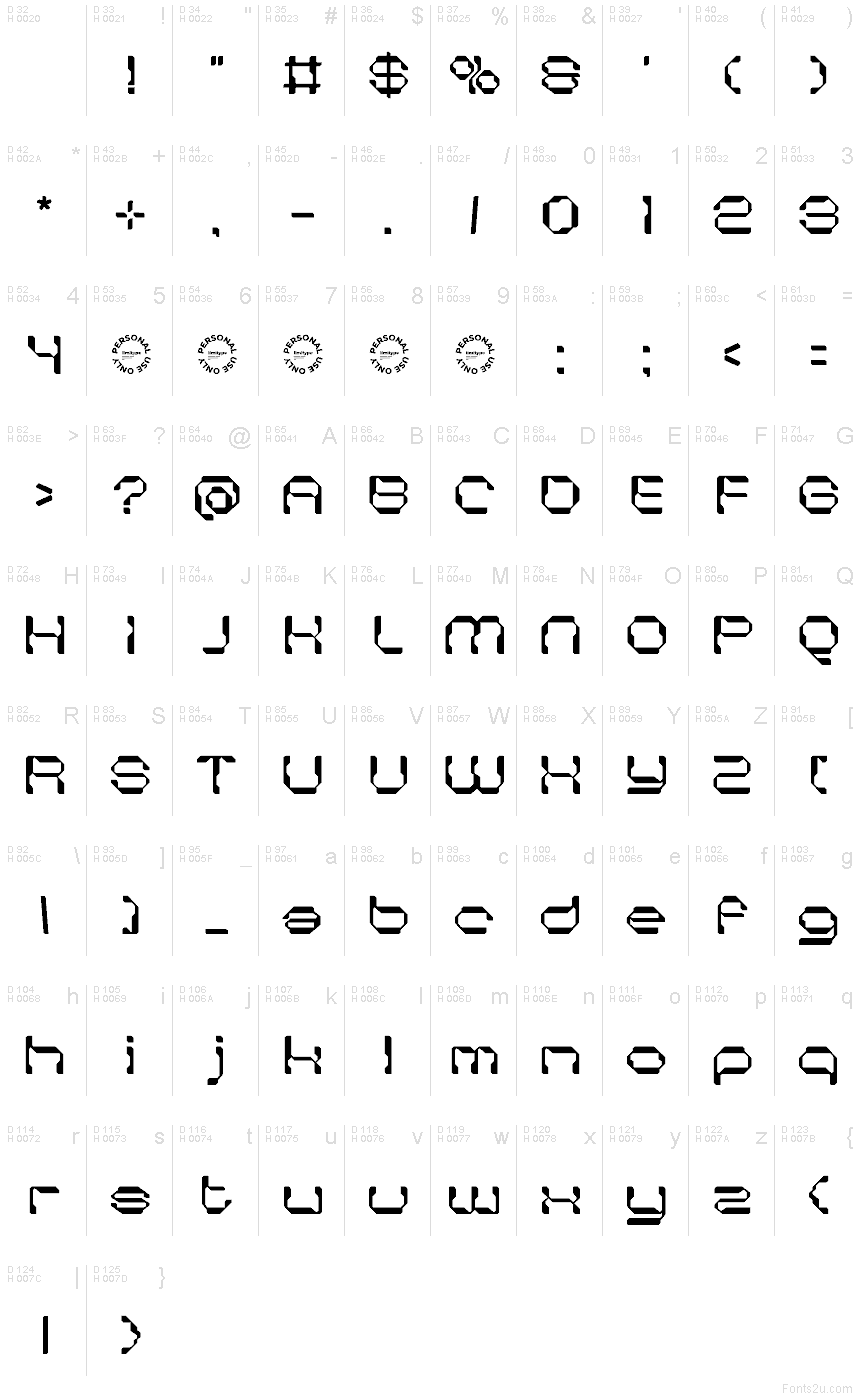
Neoform Demo
Neoform font by Limitype is a free display font with a futuristic style and expanded width. The funky geometric appearance showcases a series of angles, squares, and triangles that play mind games with the readers maintaining second to none professional yet cool vibes. A mix between the classic and modern is highly visible in its design with a slight digital feel.
The versatile nature of this beautiful font makes it suitable for movie posters, video game designs, websites, branding projects, interior décor items, visual identities for contemporary brands like tech and construction. It’s also ideal for book covers targeting teens or young adults who enjoy playing games or watching sci-fi movies.
Neoform font by Limitype is a free display font with a futuristic style and expanded width. The funky geometric appearance showcases a series of angles, squares, and triangles that play mind games with the readers maintaining second to none professional yet cool vibes. A mix between the classic and modern is highly visible in its design with a slight digital feel.
The versatile nature of this beautiful font makes it suitable for movie posters, video game designs, websites, branding projects, interior décor items, visual identities for contemporary brands like tech and construction. It’s also ideal for book covers targeting teens or young adults who enjoy playing games or watching sci-fi movies.